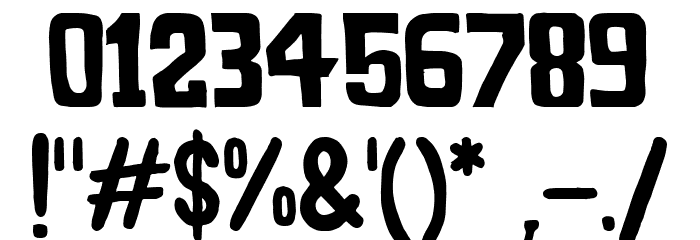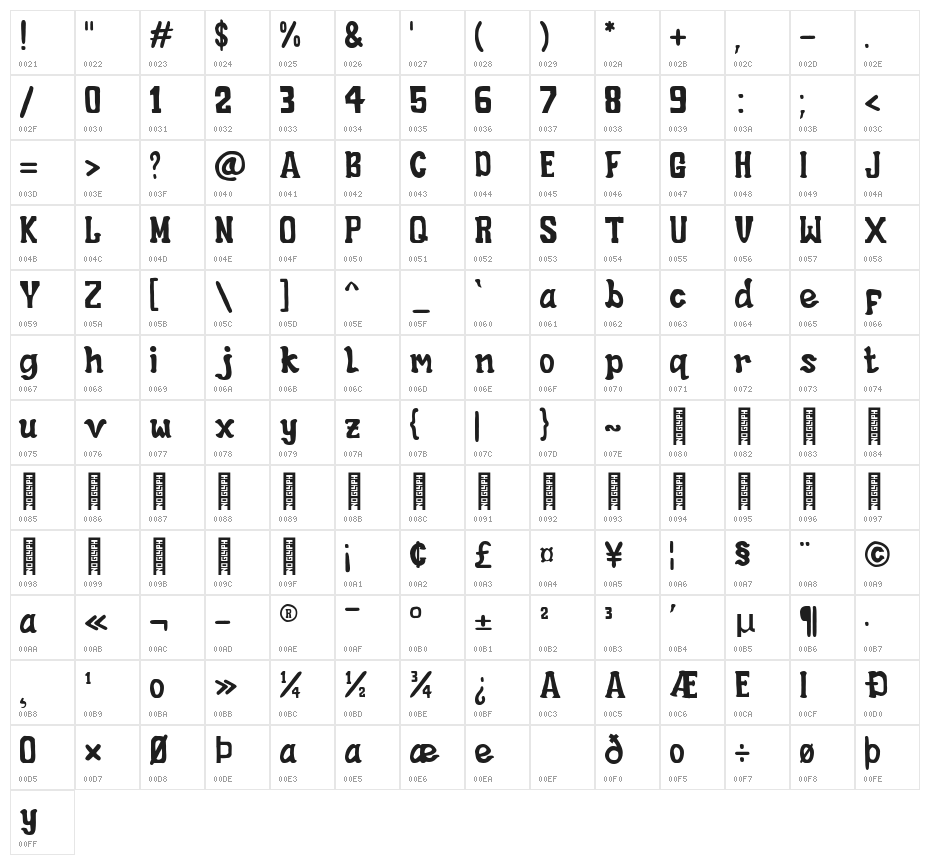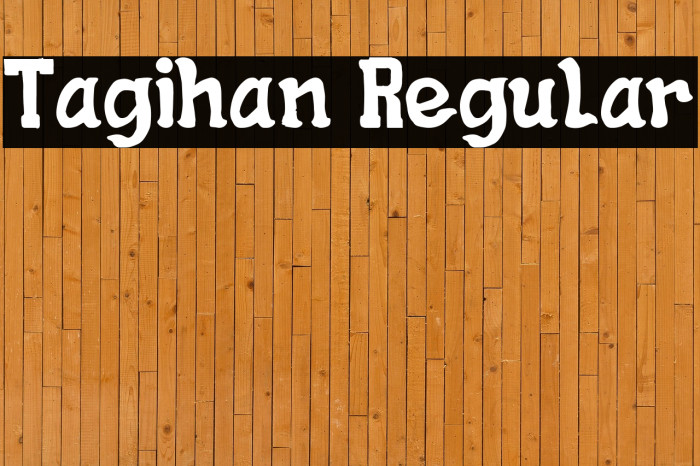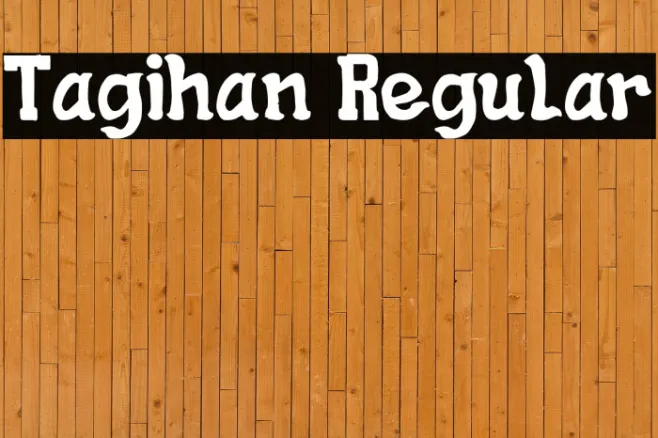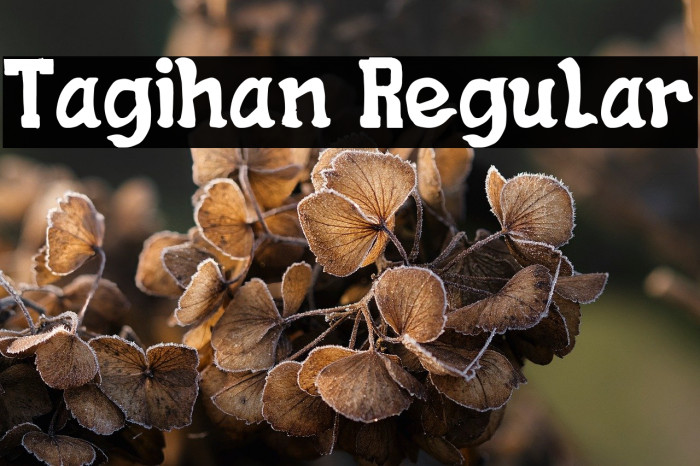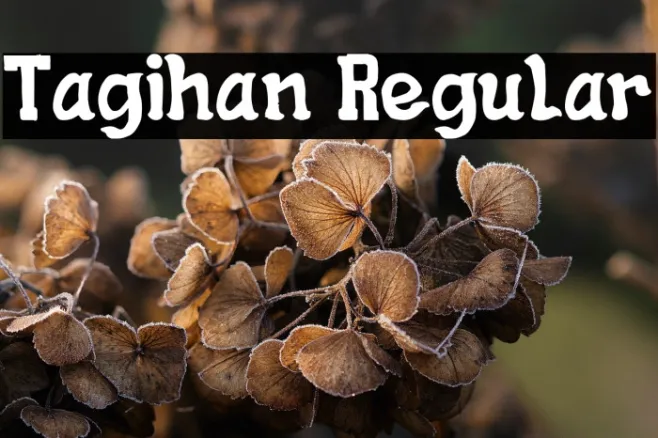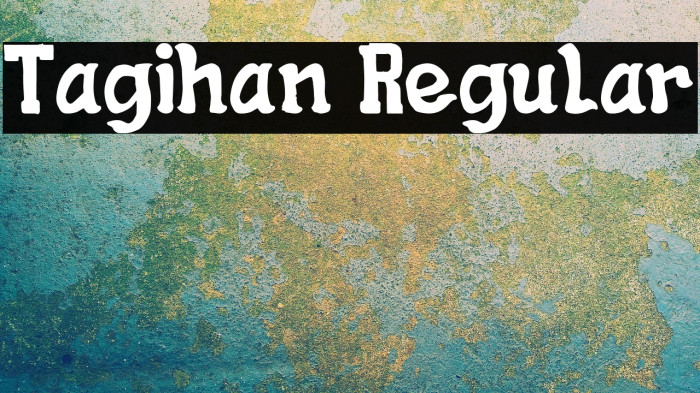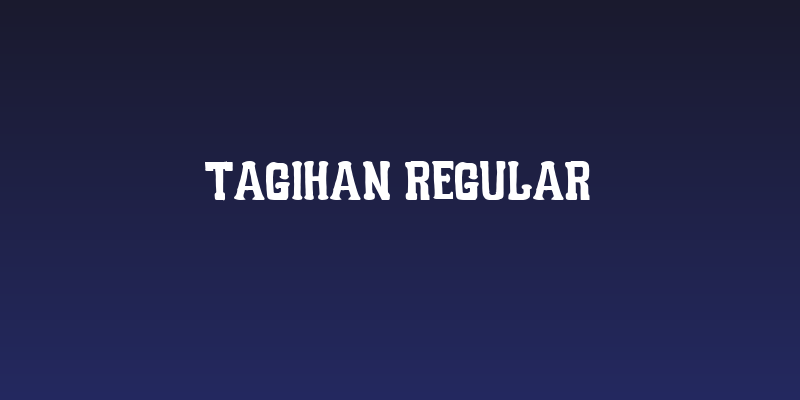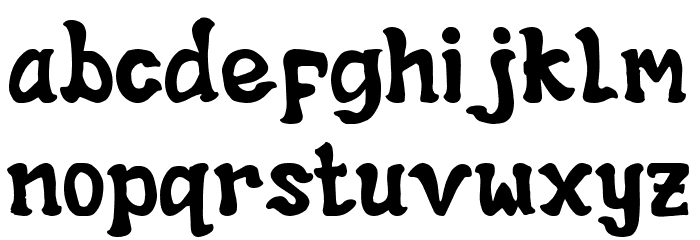
Tagihan Regular Font
Tagihan Regular Description
This font features a bold, decorative style with a hand-drawn appearance. The uppercase letters are robust and slightly condensed, giving a strong presence. The lowercase letters maintain a playful, whimsical feel with irregular strokes and varying thicknesses. Numbers are bold and consistent with the overall style, ensuring readability while maintaining the decorative theme. Special characters are creatively designed, adding to the font's unique personality. The font's overall look is reminiscent of vintage signage or posters, making it ideal for projects that require a touch of nostalgia or artistic flair.